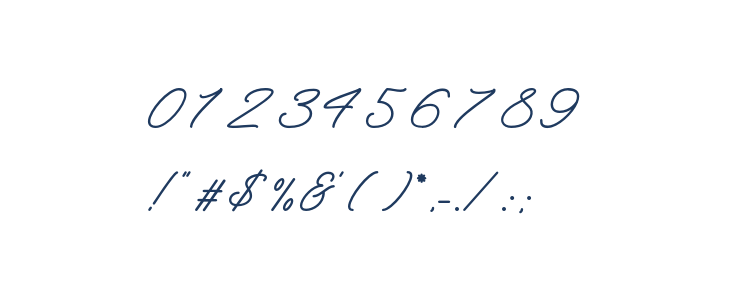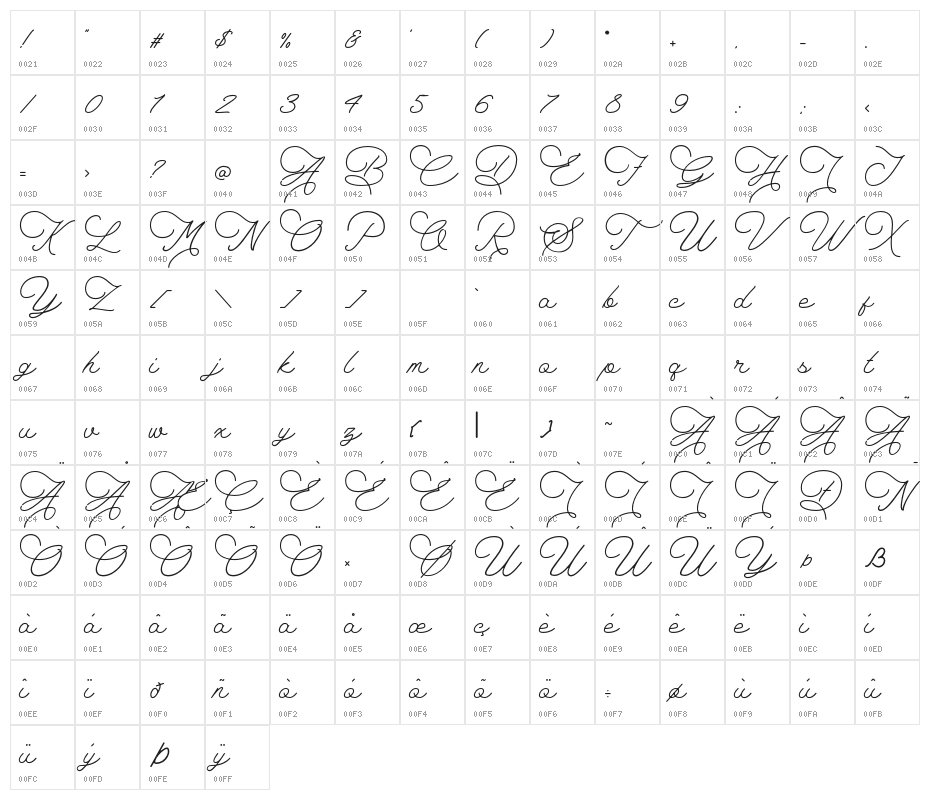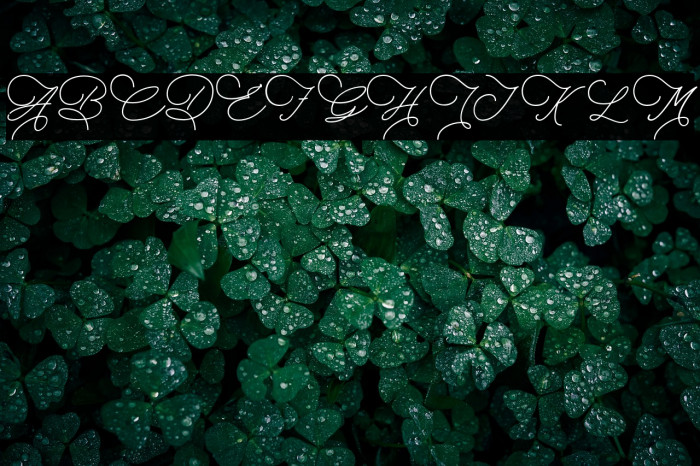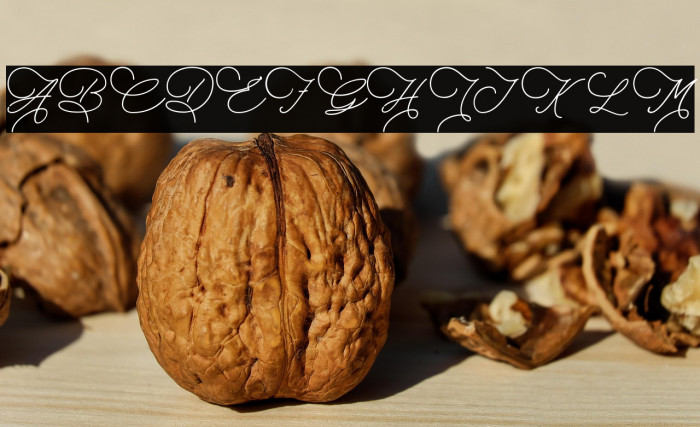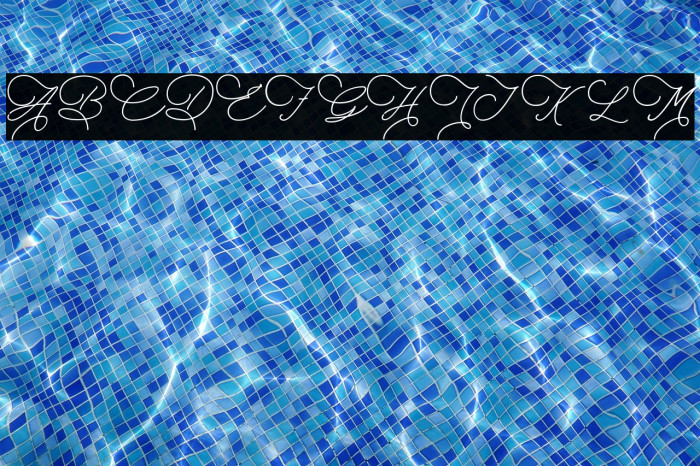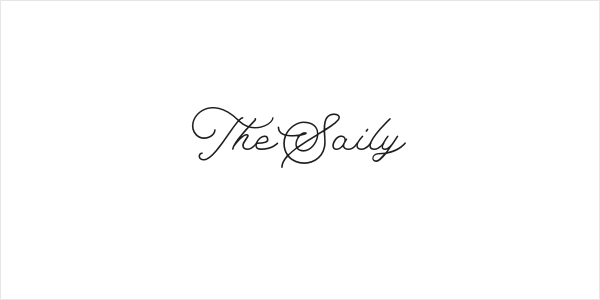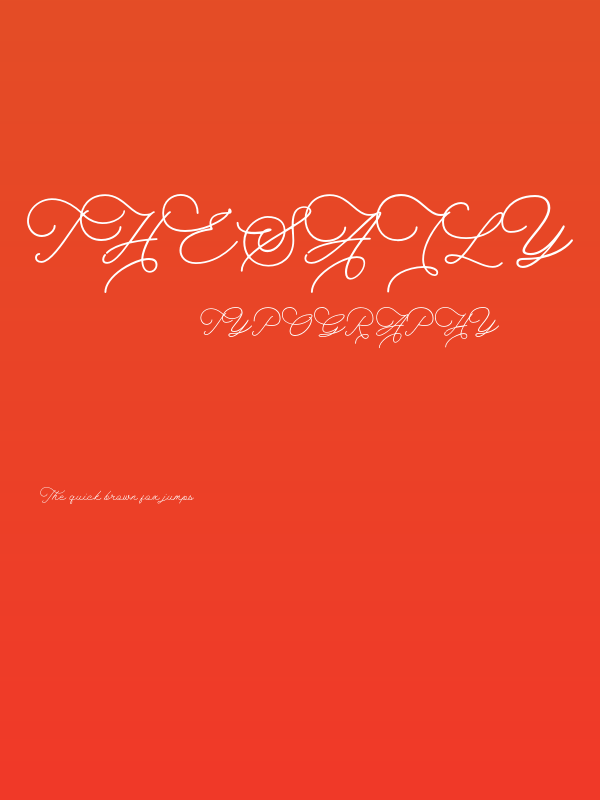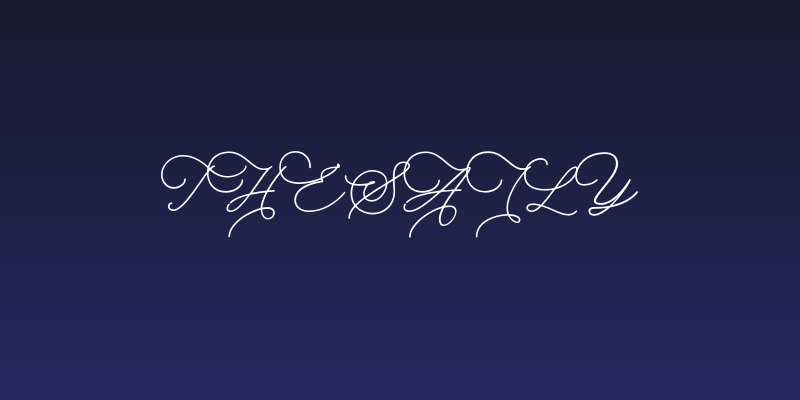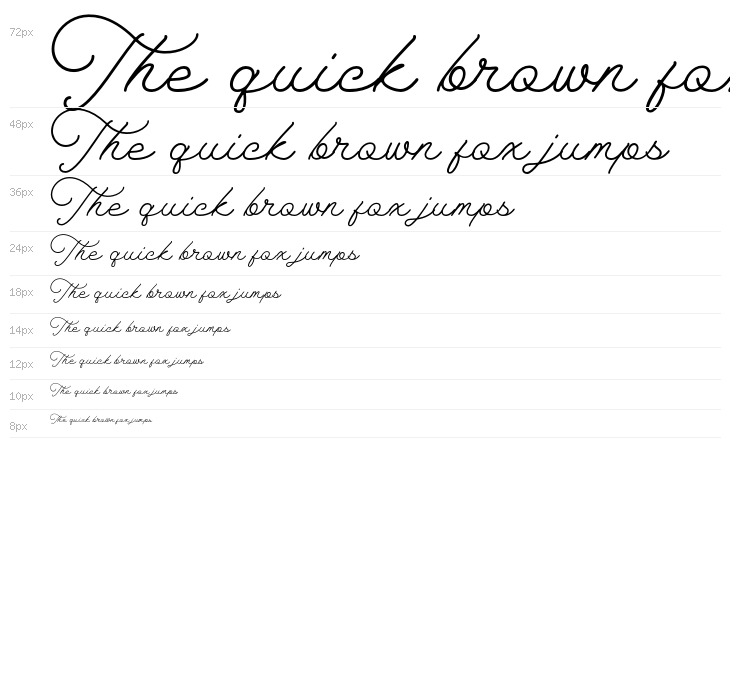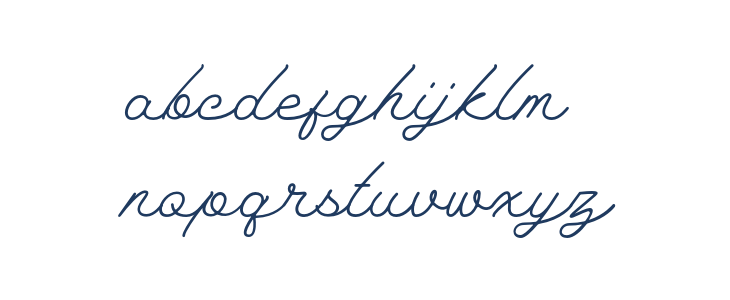
TheSaily Font
TheSaily Description
This elegant script font features a flowing, cursive style with intricate loops and swashes that give it a sophisticated and graceful appearance. The uppercase letters are particularly ornate, with elaborate flourishes that add a touch of luxury and refinement. The lowercase letters maintain a consistent flow, enhancing readability while preserving the decorative nature of the font. The numerals and special characters are designed to match the overall style, ensuring a cohesive look across all text elements. This font is perfect for projects that require a touch of elegance and class.
| Overall Style | Elegant, Decorative |
| Use Case | Headlines, Invitations, Branding |
| Proposed Projects | Ideal for wedding invitations, luxury branding, elegant stationery, and decorative headlines. |